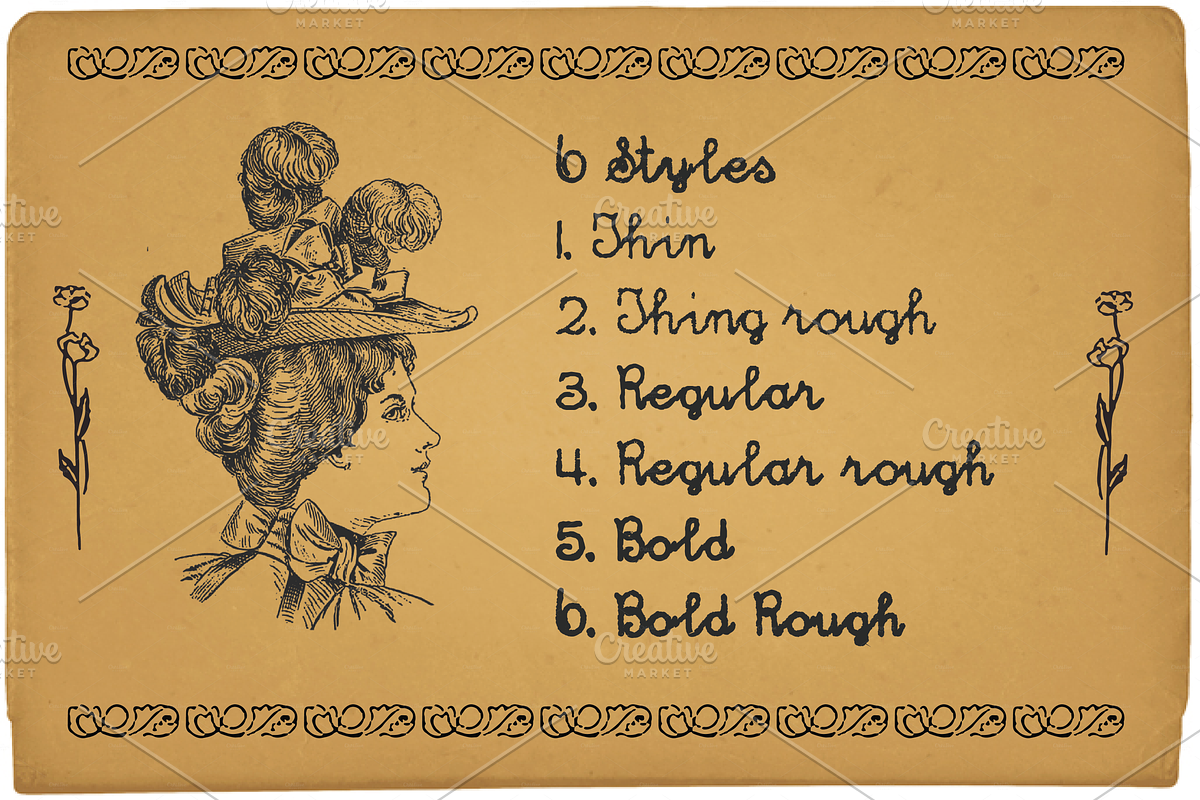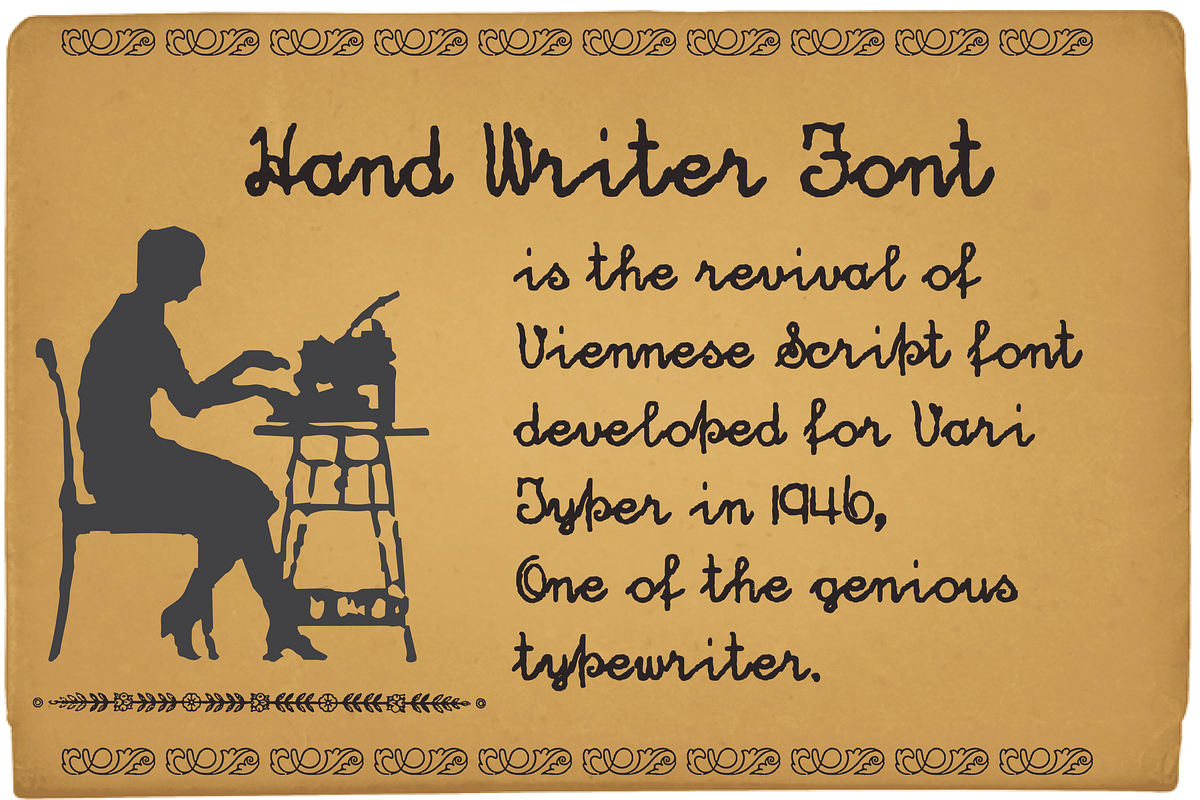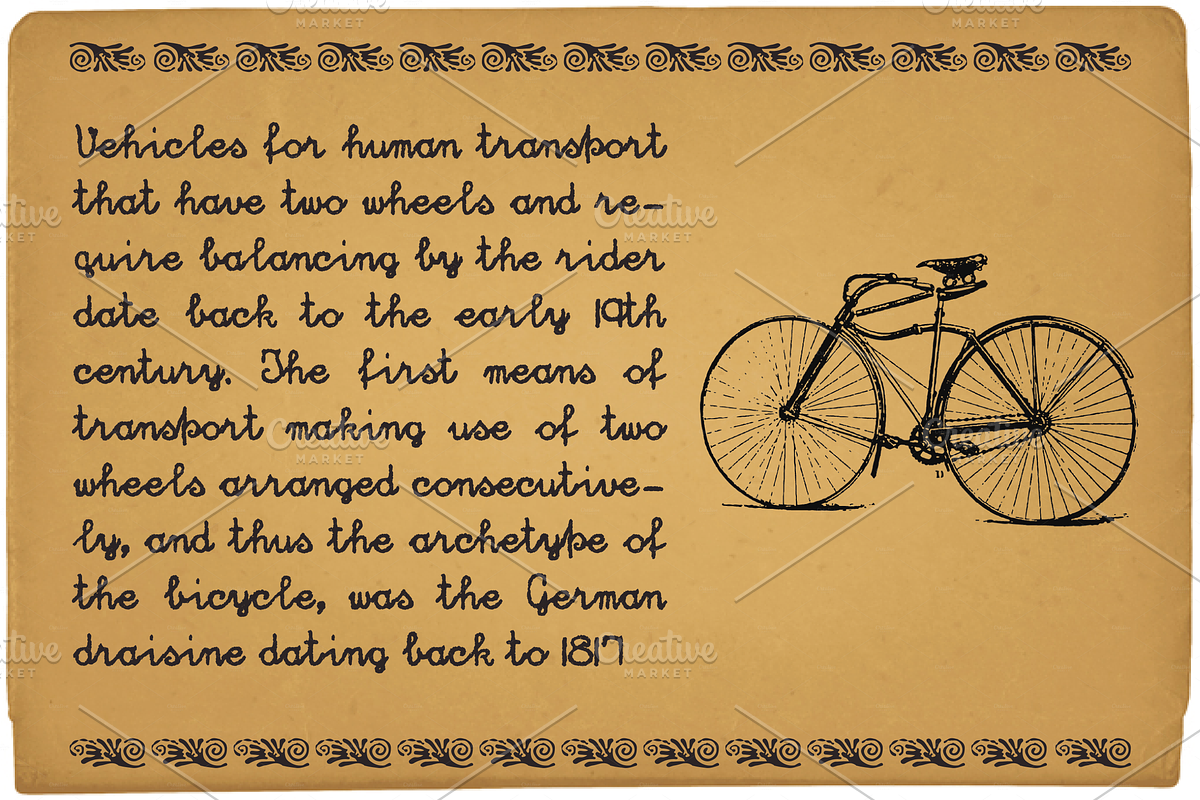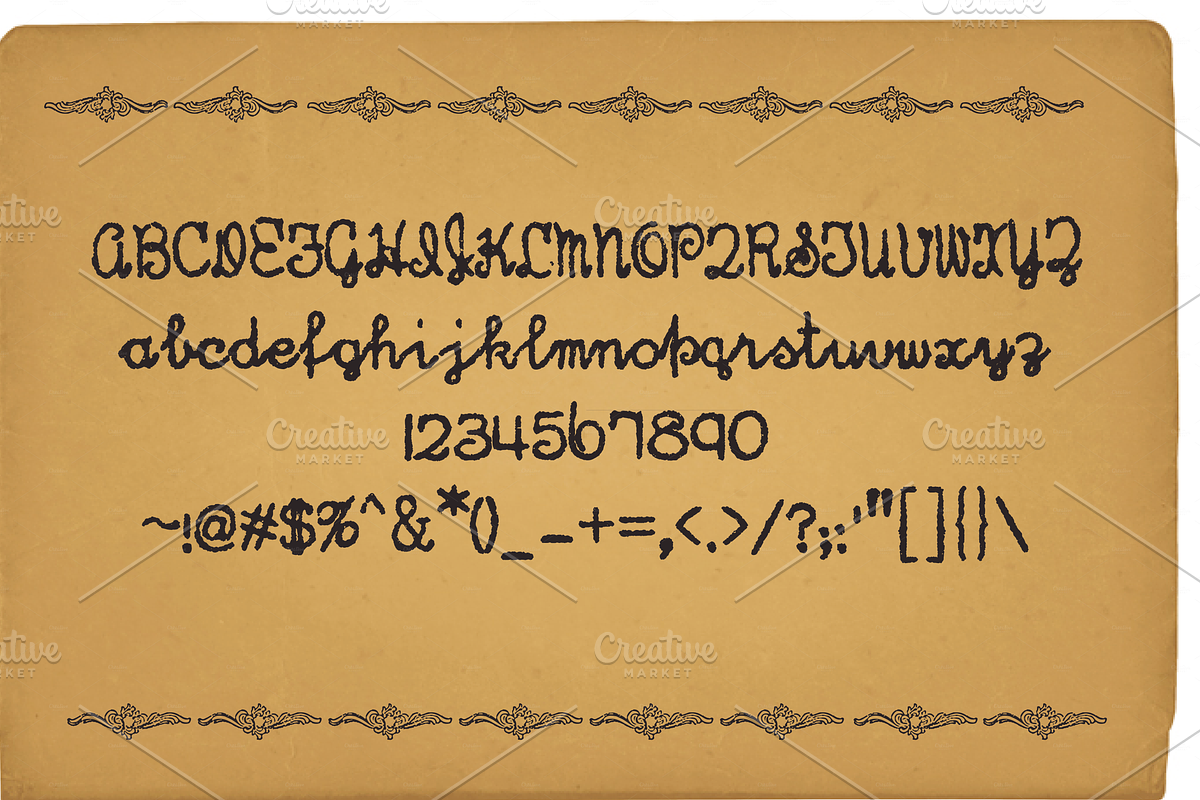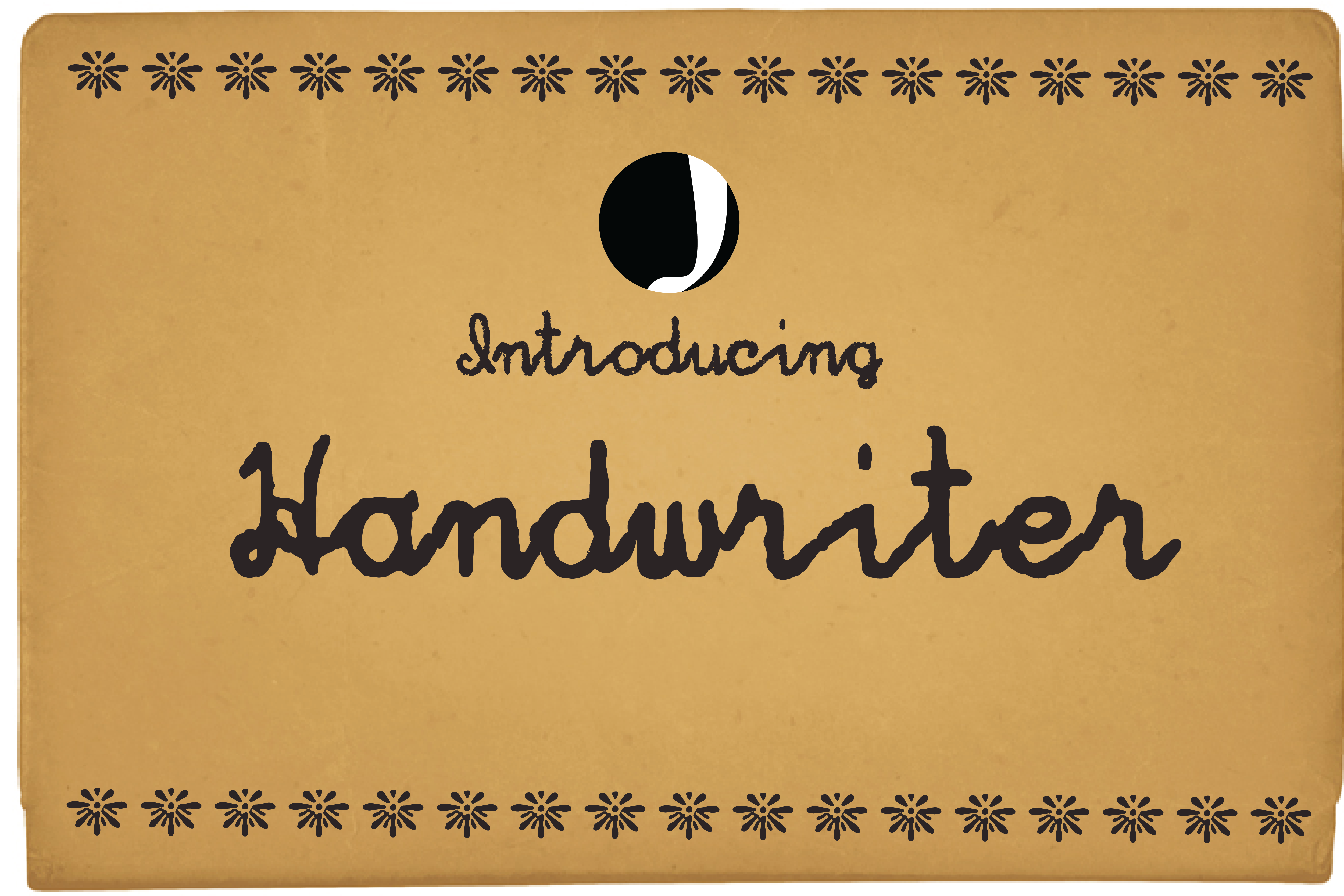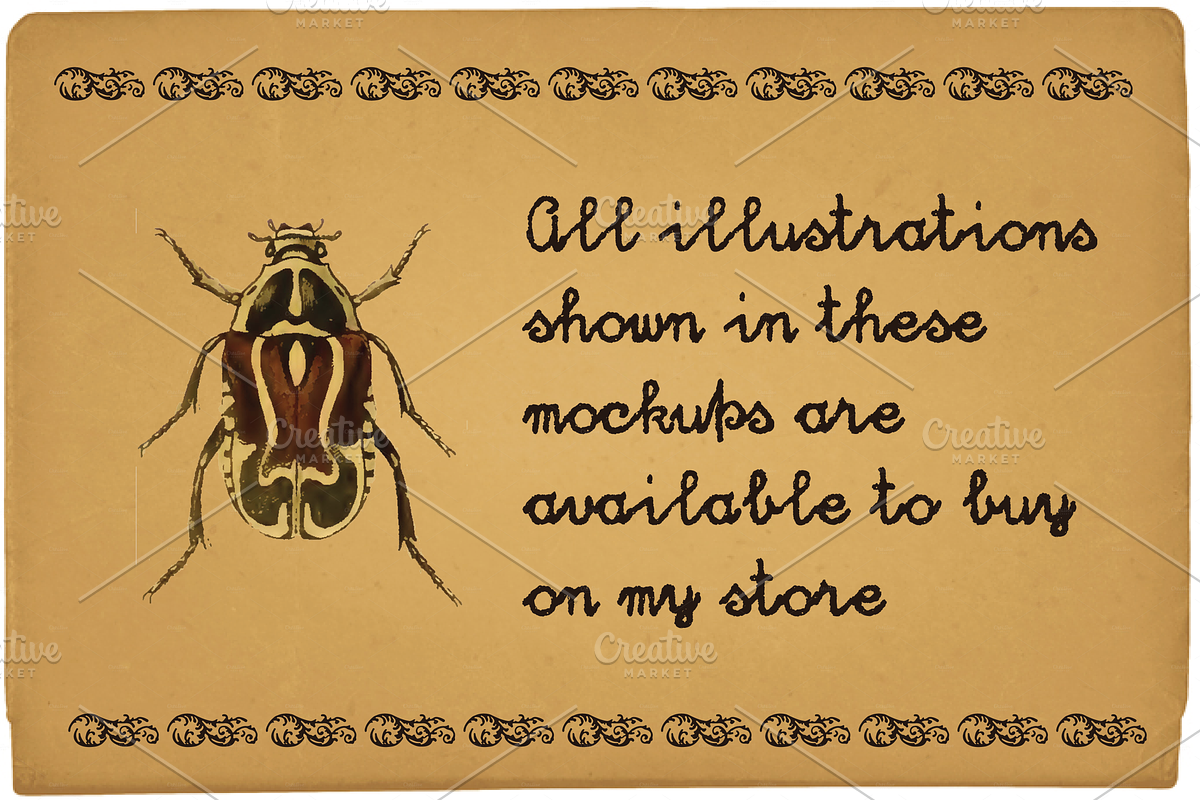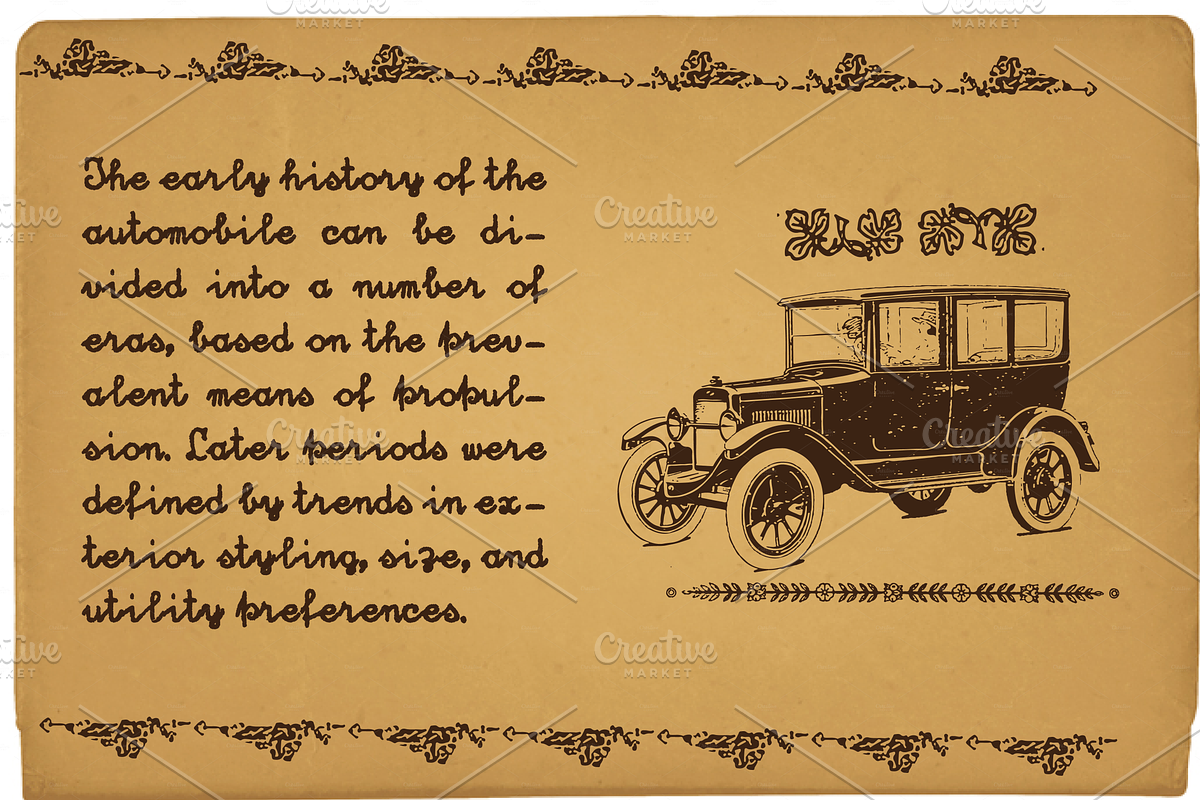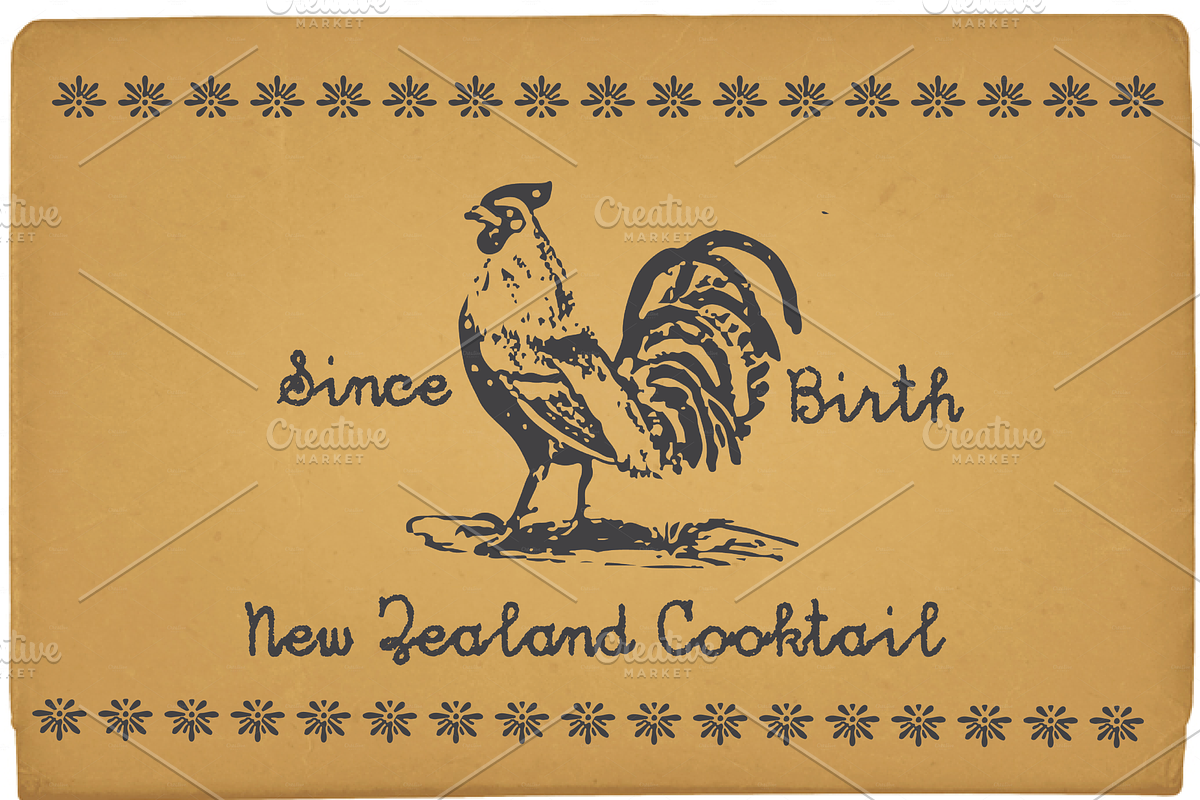
Hand Writer Retro Font
Finally we are offering our first 2017 font...........Hand Writer That sounds weird??? Yes, but fact is when we start reviving one of the best typewriter font developed by Vari Typer, we though the name should be combination of hand written and type writer............then come up with Hand Writer Now that sounds cool.........
6 styles are crafted carefully to give a real look of hand written style in some old age.....